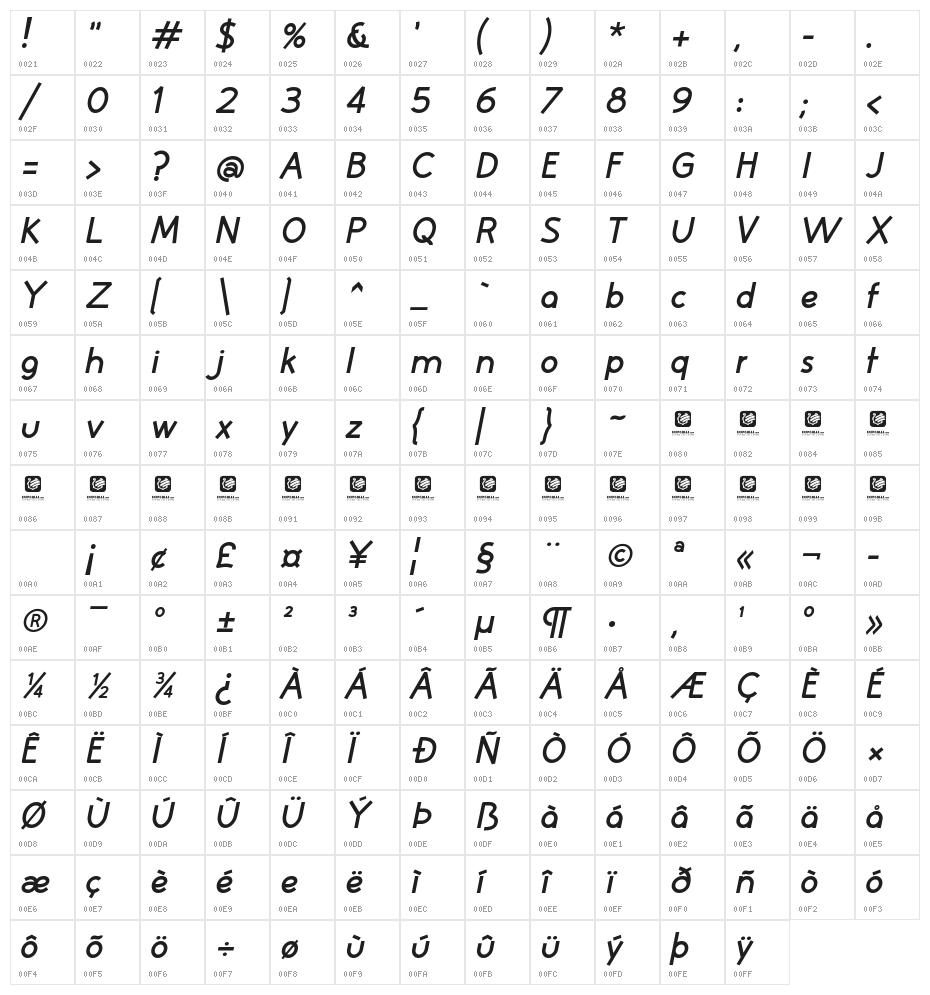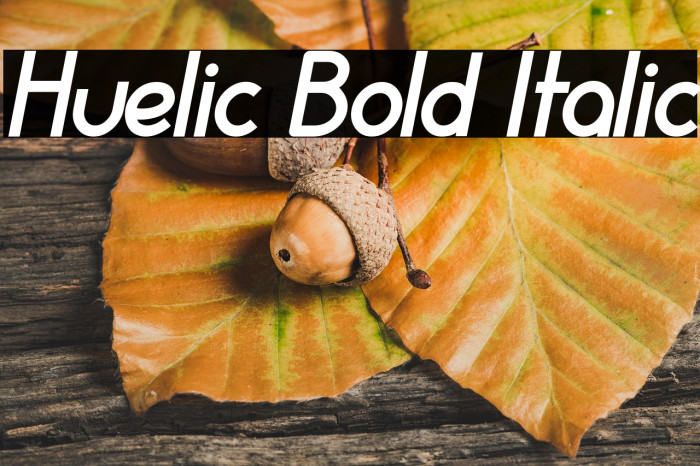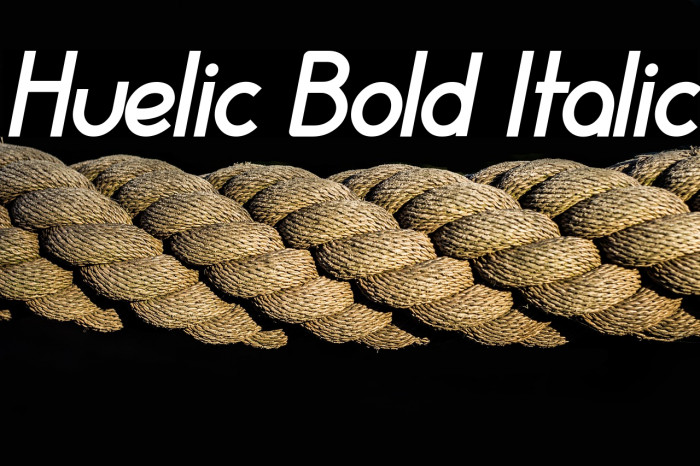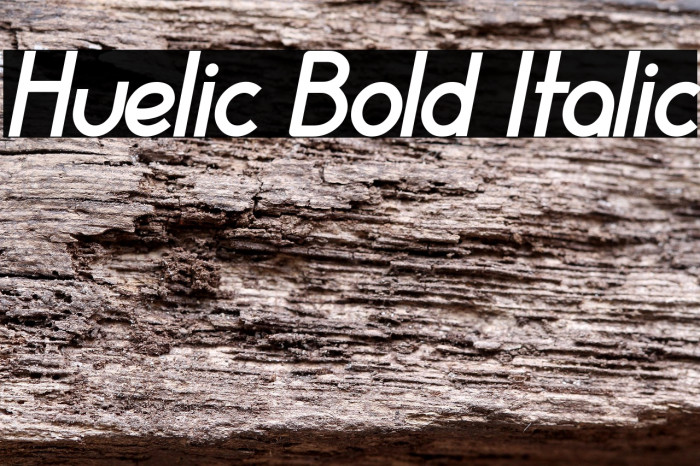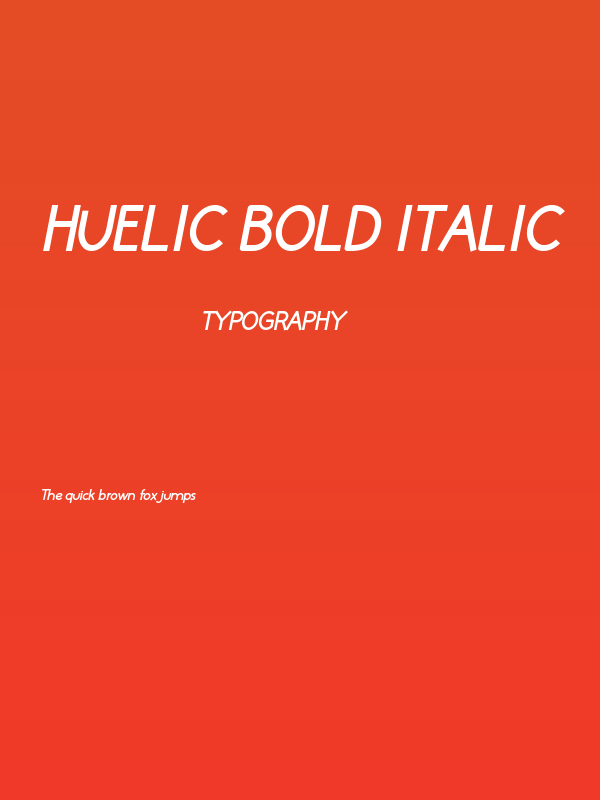
Huelic Bold Italic Font
Huelic Bold Italic Description
This font features a bold and italicized style, combining strength with a dynamic slant. The characters are well-defined with a modern sans-serif appearance, offering a clean and professional look. The uppercase letters are slightly taller than the lowercase, maintaining a consistent width that enhances readability. Numbers are proportionate and align well with the overall design, while special characters are distinct and easily recognizable. The font's bold weight and italic slant make it suitable for attention-grabbing headlines and impactful statements.
| Proposed Projects | Ideal for branding, advertising, and editorial design where a strong, modern presence is required. |